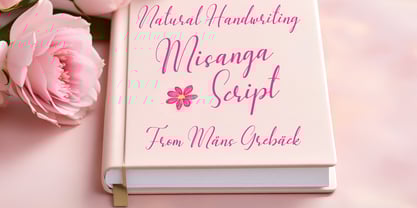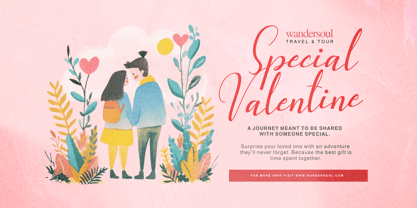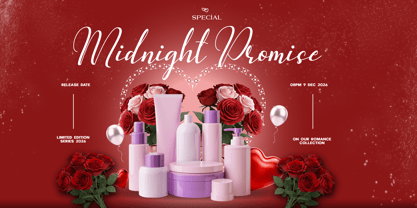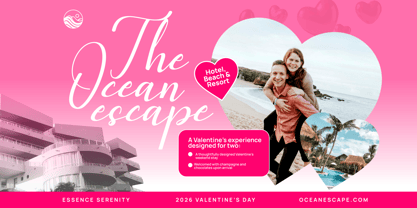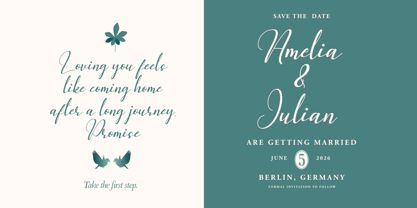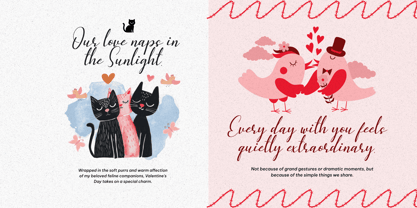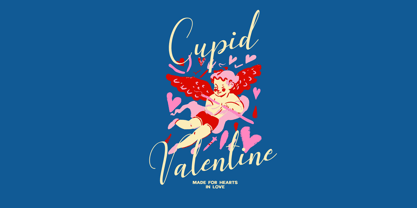
Misanga Script
by Mans Greback
The Misanga Script Font Family was designed by Måns Grebäck and published by Mans Greback. Misanga Script contains 4 styles and family package options. More about this family
Misanga Script is a natural handwriting font with a soft rhythm and a light, friendly flow. It carries the feeling of quick notes written with care, where strokes vary slightly and letters connect in an easy, unforced way. The shapes are smooth and rounded, with gentle loops and a relaxed baseline that keeps the text lively without becoming messy. There is a clear sense of movement, as if the words were written in one continuous motion, giving the lettering warmth and approachability. The font is built with advanced functionality and guaranteed top-notch quality, containing stylistic and contextual alternates, ligatures and more automatic and manual features; all to give you full control and customizability. It has extensive lingual support, covering all Latin-based languages, from North Europa to South Africa, from America to South-East Asia. It contains all characters and symbols you'll ever need, including all punctuation and numbers. Misanga Script was drawn to feel personal rather than decorative, focusing on natural connections and believable handwriting details. It aims to stay expressive while remaining readable, balancing charm with clarity in every letter.